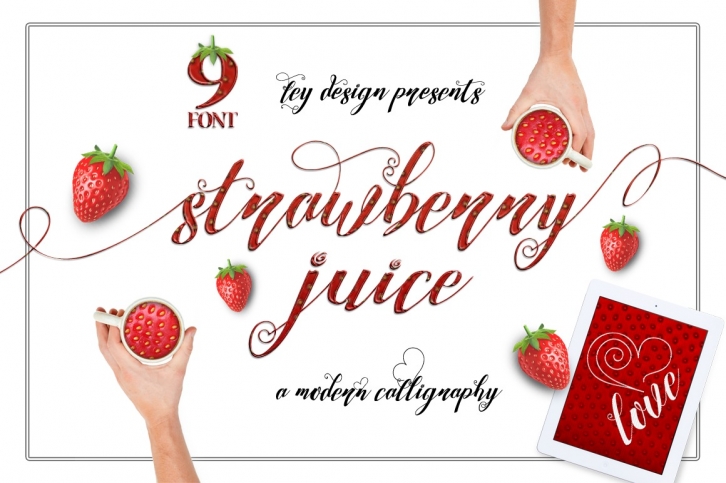
Strawberry Family is a beautiful font that was designed by feydesign. It's a great choice for designers and creatives who need such a font. It was released on July 29, 2016 and the file size is 10.28 MB. Strawberry Family may give a more youthful, expressive and casual look to your project. It is a very beautiful, refined, elegant, and high-quality font.